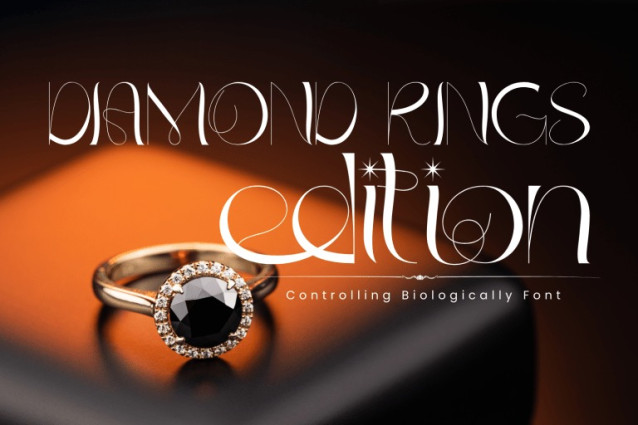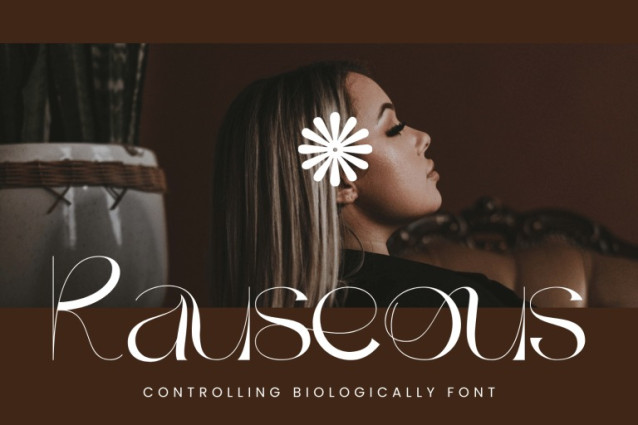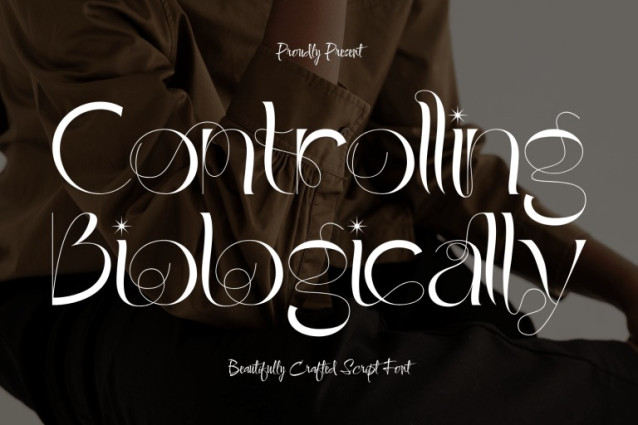
Controlling Biologically – Luxury Font is an elegant calligraphic serif display typeface inspired by luxury editorial design and refined handwritten lettering. Featuring high-contrast strokes, graceful curves, and flowing calligraphic details, this font delivers a sophisticated and romantic visual character. Including both Uppercase and Lowercase letters, approximately 100 custom special ligatures, complete Numerals & Punctuation, and extensive Accented characters, Controlling Biologically allows designers to create expressive, luxurious, and artistic typographic compositions. Its decorative ligature system, delicate swashes, and airy letterforms make it ideal for fashion branding, beauty products, wedding designs, book covers, magazines, and high-end creative projects.
🔤Features:
Uppercase & Lowercase Letters
Around 100 Special Ligatures & Alternates
Accented Characters for multilingual support
🔤About 100 ligatures combined with Stylistic Alternates Font: